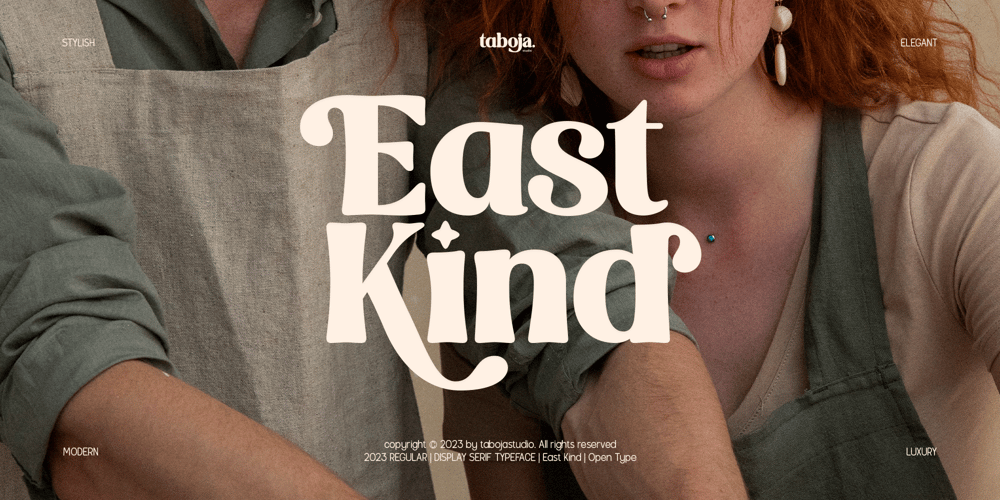
East Kind Groovy Serif
East Kind Groovy Serif font
East Kind Groovy Serif Font Family was designed by Yusilo Oktaprima Ardani and published by Taboja Studio. East Kind Groovy Serif contains 1 styles and family package options. Introducing East Kind Serif Font a versatile typeface designed to elevate all your design needs. This font effortlessly combines the timeless elegance of serif with a groovy twist, creating a perfect balance between classic and contemporary aesthetics.Whether you’re working on branding, editorial design, or web projects, this font adapts seamlessly, enhancing the visual appeal of your creations. Its concise yet expressive design ensures readability and captivates your audience with a unique and engaging visual experience.East Kind Features: Regular Uppercase And Lowercase Alternates And Ligatures Numerals & Punctuation Accented characters Multilingual Support Unicode PUA Encoded We highly recommend using a program that supports OpenType features and Glyphs panels such as Adobe Illustrator, Adobe Photoshop CC, Adobe Indesign, or CorelDraw, so you can see and access all Glyph variations.While using this product, if you encounter any problem or spot something we may have missed, please don’t hesitate to drop us a message. We’d love to hear your feedbacks in order to further fine-tune our products.Stay creative and have a wonderful day.